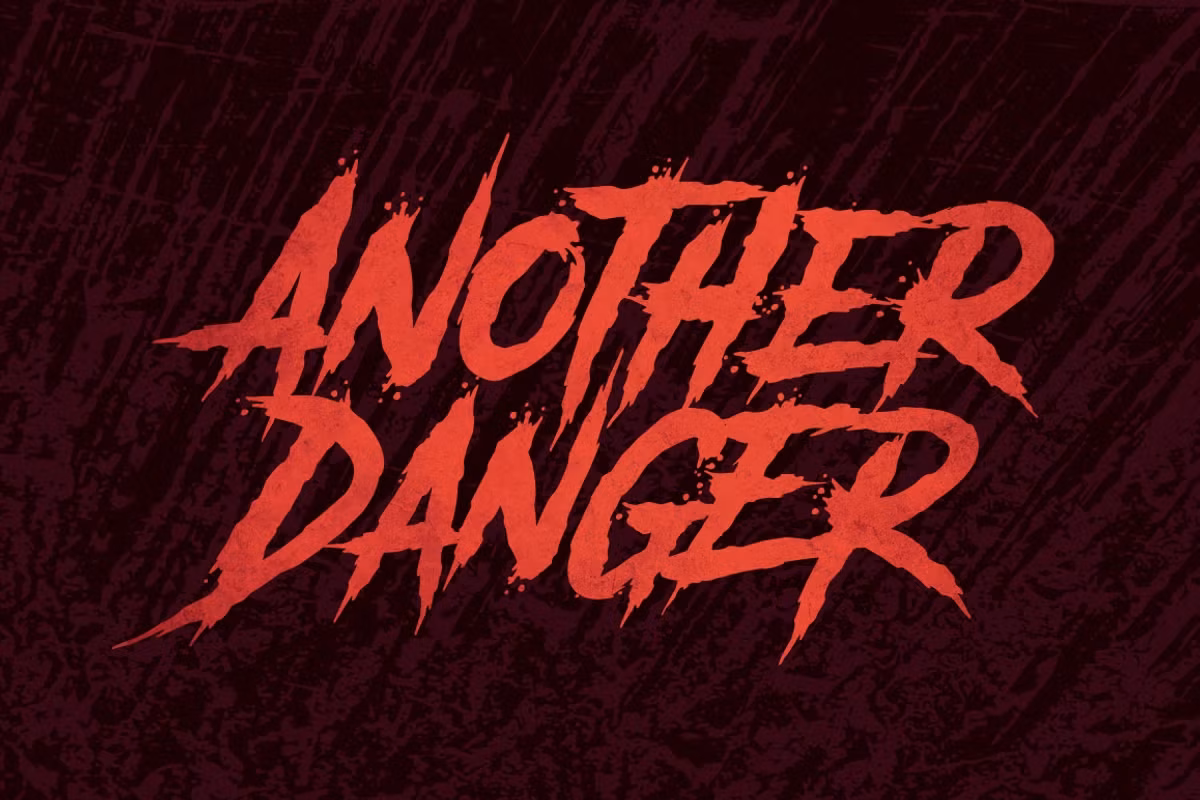
Another Danger - Horror Font Free Download
Another Danger – Horror Font Free Download is a chilling and intense typeface perfect for spooky designs and Halloween-themed projects. With jagged edges, distorted shapes, and a raw, eerie texture, this font instantly creates a sense of fear and suspense—ideal for horror movie posters, haunted house flyers, scary game titles, and thriller book covers.
Its hand-drawn, grunge-inspired style delivers a chaotic and unsettling look that grabs attention and sets a dark tone. Whether you're designing blood-dripping headlines or creepy promotional graphics, Another Danger will make your text scream.